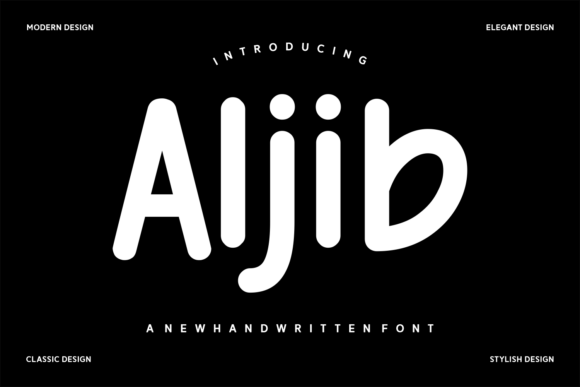
A Designer's Take on Aljib for Web Projects
I was building a landing page for a creative coaching brand. The mood board was full of imagery with warmth, storytelling, and a touch of whimsy. The client’s brief called for a brand that felt personal and inviting, but the standard sans-serif headlines I started with just weren’t capturing that magic. I needed a headline font with personality, something that felt crafted and engaging without overwhelming the clean, modern layout I had planned. That’s when I tested Aljib in the hero section, and the entire page's vibe shifted.
Aljib is a script font, but it’s one with a distinct, contemporary charm. Its letters have a playful, stylish flow that feels organic, almost like a beautifully handwritten note, but with a consistent digital polish that makes it perfect for web use. It’s not overly casual or rustic; it carries a sense of refined creativity. This balance makes it incredibly versatile for digital brands that want to stand out with personality while maintaining a professional look.
Bringing Digital Brand Stories to Life
In web design, a display font like Aljib isn’t just decoration; it’s a critical part of the user’s first impression and emotional connection. When I used it for the main headline on that coaching landing page – “Unfold Your Creative Story” – it immediately communicated the brand’s core message: personal growth through narrative. The font’s inherent charm supports brands built on storytelling, intimacy, and craft. Think boutique online stores for handmade goods, portfolio sites for artists and photographers, or websites for coaches, writers, and creators who want their digital presence to feel human-first.
Its application goes beyond the hero banner. Aljib shines as a decorative accent in section headings, especially for feature titles or short testimonials. I’ve found it works beautifully for call-to-action buttons with short phrases like “Join the Workshop” or “Get the Guide,” adding a handwritten touch that can make a button feel more like a personal invitation. For logos in digital brand kits, especially for businesses with “studio” or “atelier” in their name, Aljib offers a ready-made, distinctive logotype option. It’s also perfect for styled quotes in blog graphics, adding visual interest to social media banners, and creating memorable titles for digital course modules or product sales pages.
Readability and Responsive Considerations
Any decorative font demands careful testing in a live, responsive environment. Aljib, with its connected script style, performs best at larger sizes. For hero titles on desktop, it’s stunning. On mobile, I recommend keeping the word count low and ensuring ample line spacing so the connected letters don’t become a dense blob on smaller screens. It’s ideal for short, impactful phrases.
Conversely, this font is not suitable for body copy, navigation menus, form labels, or any interface text that requires quick scanning and high accessibility. Its decorative nature would hinder readability at small sizes and in dense paragraphs. For those elements, a clean, highly legible sans-serif is a non-negotiable pairing. The key is using Aljib for emphasis and mood-setting, while relying on a neutral supporting font for all functional reading.
Strategic Font Pairing for Web Layouts
A great display font needs a strong partner. Aljib’s playful curves and variable stroke weights pair exceptionally well with simple, geometric sans-serif fonts. In my project, I paired it with a clean, medium-weight sans for all body text and subheadings. This created a clear visual hierarchy: the charming, attention-grabbing Aljib headline, followed by utterly readable and modern supporting text. This contrast makes the design feel both dynamic and stable.
For a more editorial or traditional digital brand, pairing Aljib with a classic serif font for body copy could also work, creating a blend of handmade charm and timeless sophistication. The rule is to choose a body font that is neutral and highly legible, allowing Aljib to be the memorable personality piece without fighting for attention.
Technical Checks Before You Launch
Explore the font’s included features. Many script fonts like Aljib come with alternate characters, ligatures, or swashes. Testing these in your design software can help you customize a word to look perfect, avoiding awkward letter connections. Also, check for multilingual support if your project requires it. Finally, always preview your key layouts – especially the hero section – on multiple device sizes. See how the font renders on different browsers and screen resolutions to ensure its charm translates everywhere.
Where Aljib Elevates the Online Experience
The true test of a font is in its application. For a digital product launch page, using Aljib for the product name and key benefit headlines can make the offer feel special and crafted. For a creative portfolio website, using it for your name or the title of your project sections adds a personal signature touch that generic fonts can’t provide. In an online store for handmade or curated goods, Aljib on category banners or promotional headers reinforces the artisanal quality of the products.
Its festive description hints at wonderful applications for seasonal campaign pages. A holiday sale banner, a Christmas gift guide title, or a New Year’s workshop announcement styled with Aljib would carry that thematic magic directly into the digital space, creating a cohesive brand experience from product to promotion.
Ultimately, Aljib is a tool for digital designers who want to inject warmth and narrative into a screen. It’s a font that asks to be used sparingly and strategically, for those moments where you want a user to pause, feel something, and connect with the story behind the brand. When paired with a solid layout and legible supporting typography, it becomes more than just a typeface; it becomes a key part of a memorable and engaging online identity.